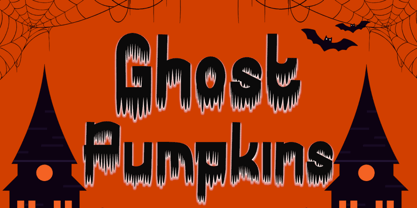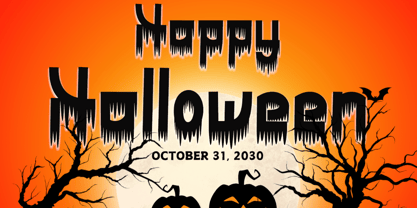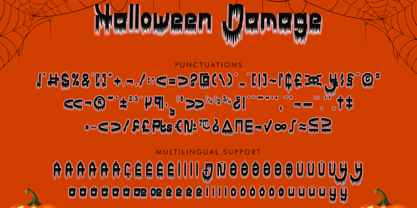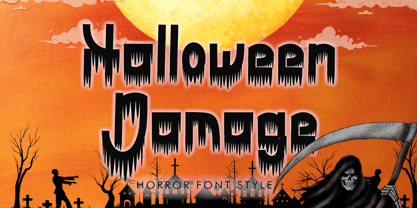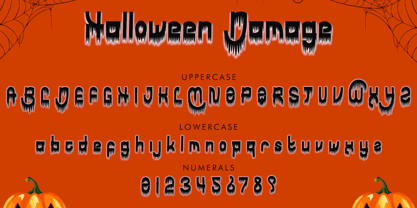
Halloween Damage
by Yoga Letter
The Halloween Damage Font Family was designed by Isroni Yoga Prasetya and published by Yoga Letter. Halloween Damage contains 1 styles.
"Halloween Damage" is a spooky and unique Halloween display font. It features uppercase and lowercase letters, numerals, punctuations, and multilingual support. It's perfect for Halloween, Christmas, horror movie titles, book titles, tattoos, stickers, posters, prints, banners, branding, stickers, logos, fall, autumn, comics, magazines, social media, and more.